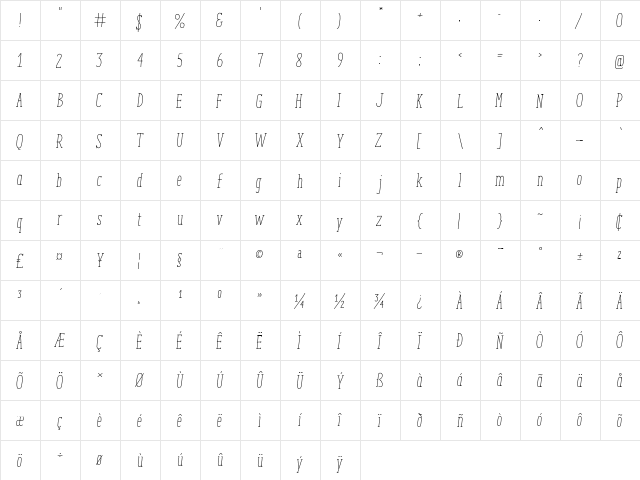
ENYO Serif Light Italic Font Preview
| Foundry | Julia Martinez Diana, Antipixel |
| Designer | Julia Martinez Diana, Antipixel |
Design Context for ENYO Serif Light Italic Typeface
ENYO Serif Light Italic carries the refined structure of traditional serif typography, with bracketed terminals and considered proportions that communicate credibility and craft. The dynamic lean of this cut emphasises speed and emphasis in any layout. The delicate stroke weight brings airiness and refinement to layouts.